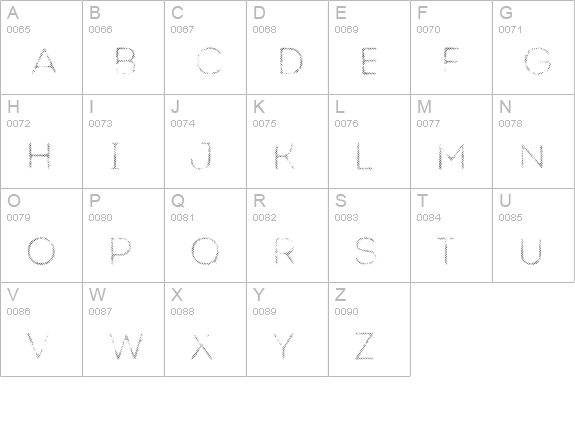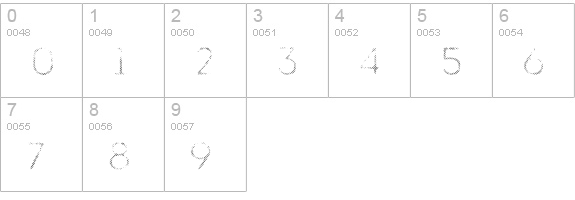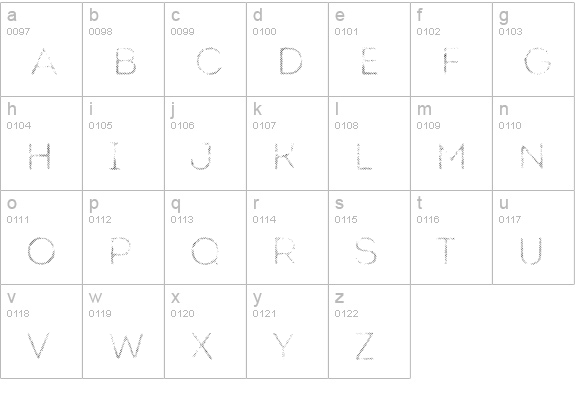
Intro Rust Book L Font Details
Intro Rust Book L is a comfortable, highly readable variant in the Intro typeface family \xE2\x80\x94 well suited to long-form body text, articles, and editorial content.
The Intro Rust Book L font is a captivating and versatile typeface that exudes a unique blend of vintage charm and contemporary flair. Its bold and distinct design makes it perfect for a wide range of creative projects, from branding to editorial design. This elegant font features a subtle rough texture that adds character and depth to your typography. What sets Intro Rust Book L apart is not only its stylish aesthetic but also its accessibility. This font is available for free download at FontsMarket.com, making it easy for designers and enthusiasts alike to incorporate this stunning typeface into their work. With its seamless compatibility across various design software and platforms, Intro Rust Book L offers endless possibilities for creating eye-catching and memorable designs. Elevate your projects with the timeless elegance of Intro Rust Book L font today.